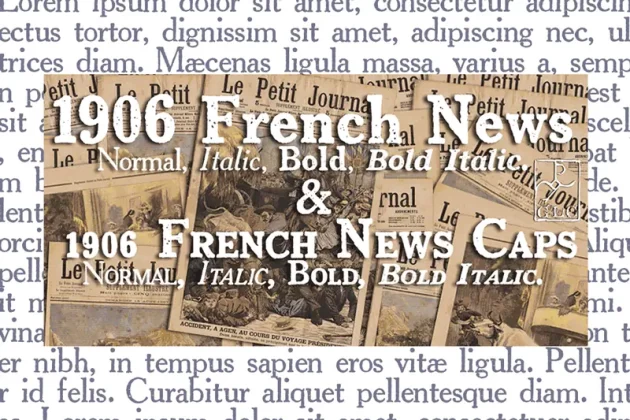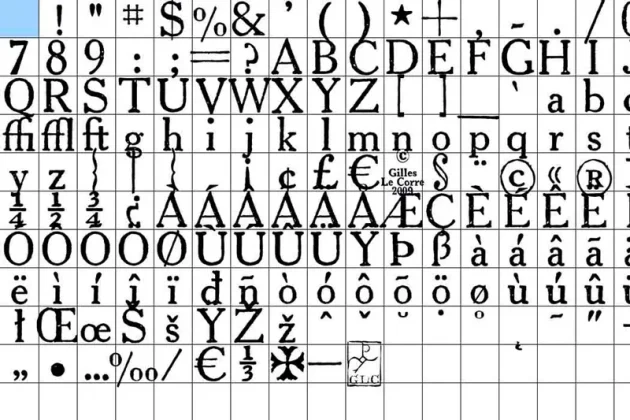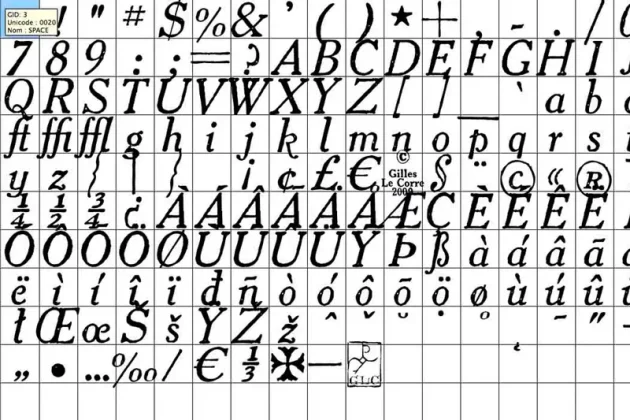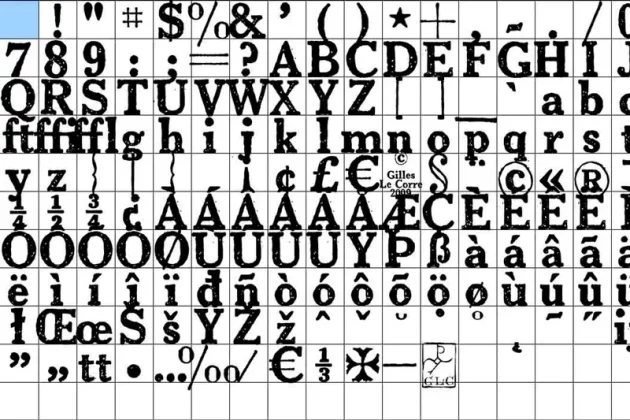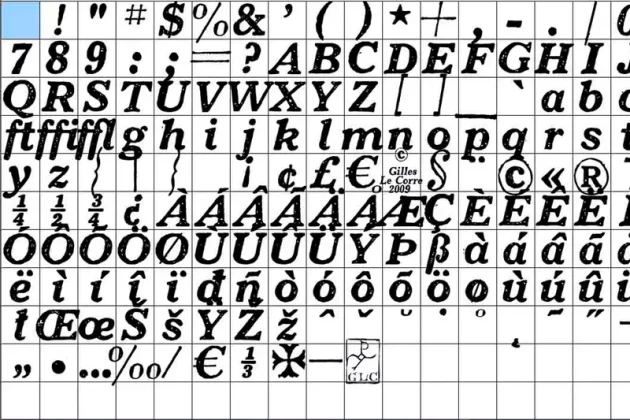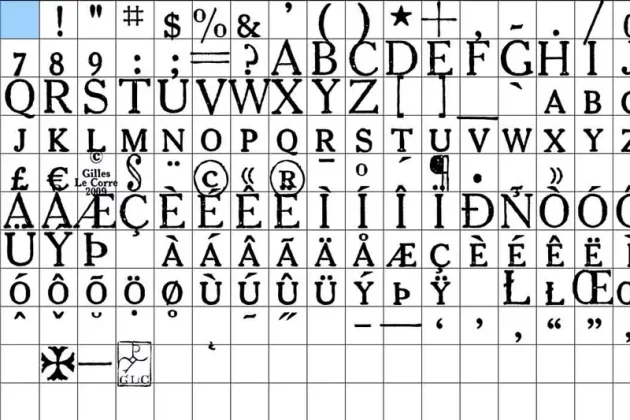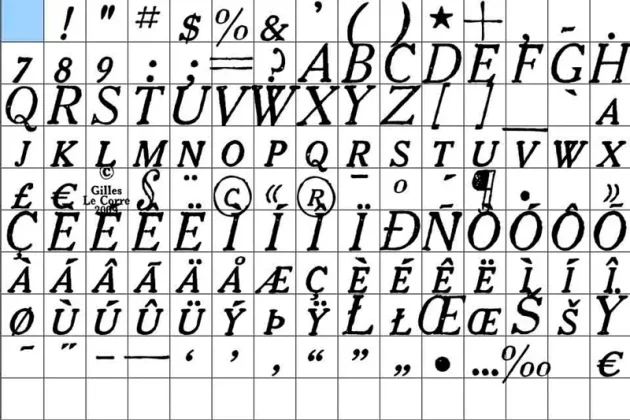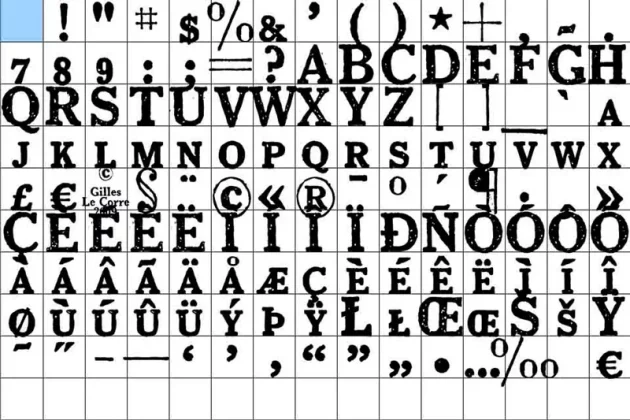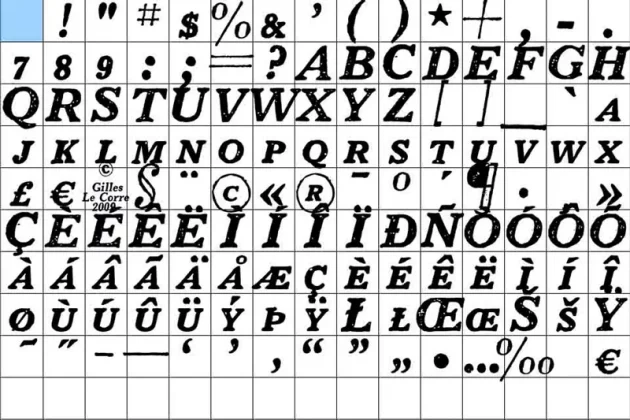
1906 French News Set Font
About 1906 French News Set Font
We have created this family from the numerous derivatives in use for newspapers since the middle of 1800’s to the 1970’s, inspired from the well known Clarendon. Mainly, the patterns are these used to print “Le Petit Journal”, a French popular Newspaper of the area (publication since 1863 to 1937).
The present version contains Normal, Italic, Bold and Bold Italic styles, in two sub family : “1906 French News” for texts and titrages with upper and lower case and “1906 French News Caps” : Caps, small caps, small numerals, for texts and titrages.